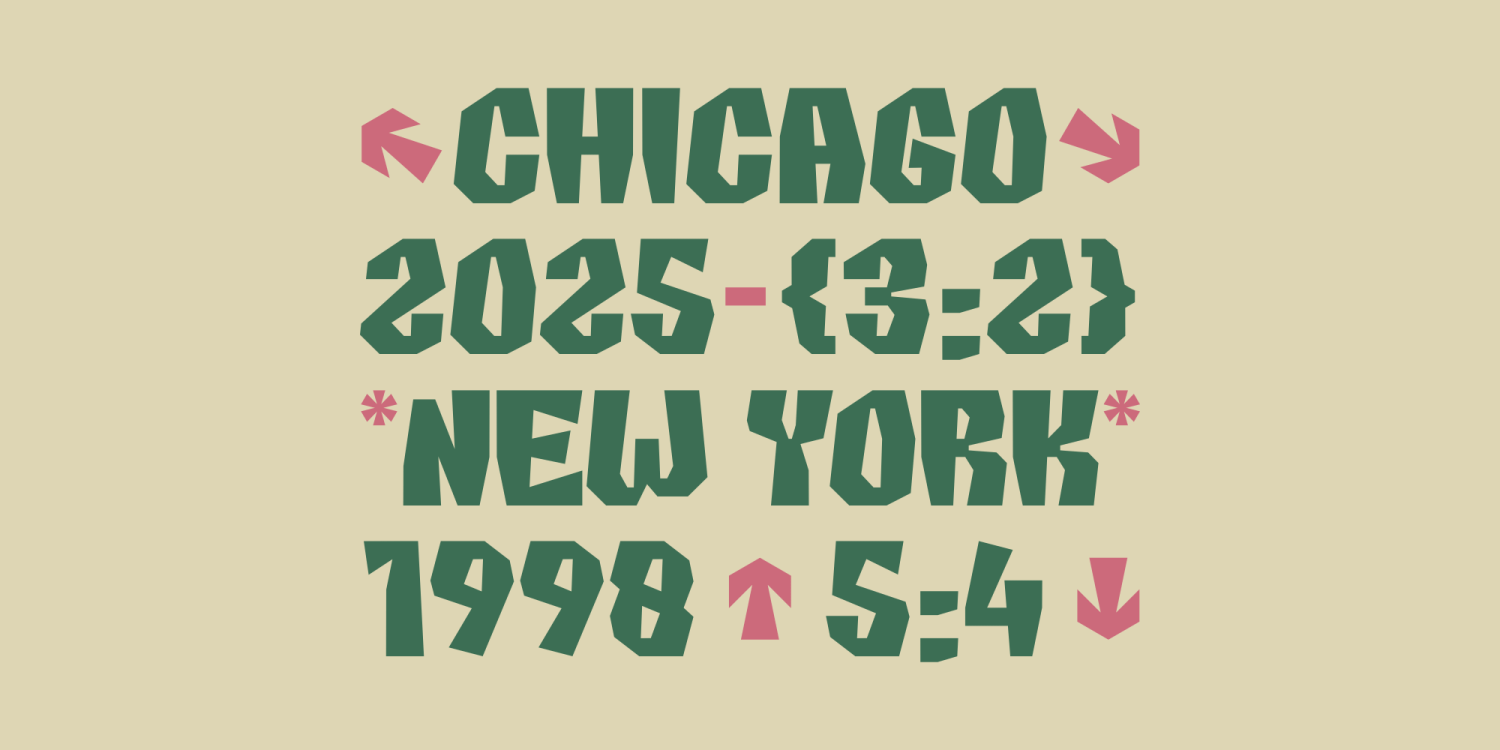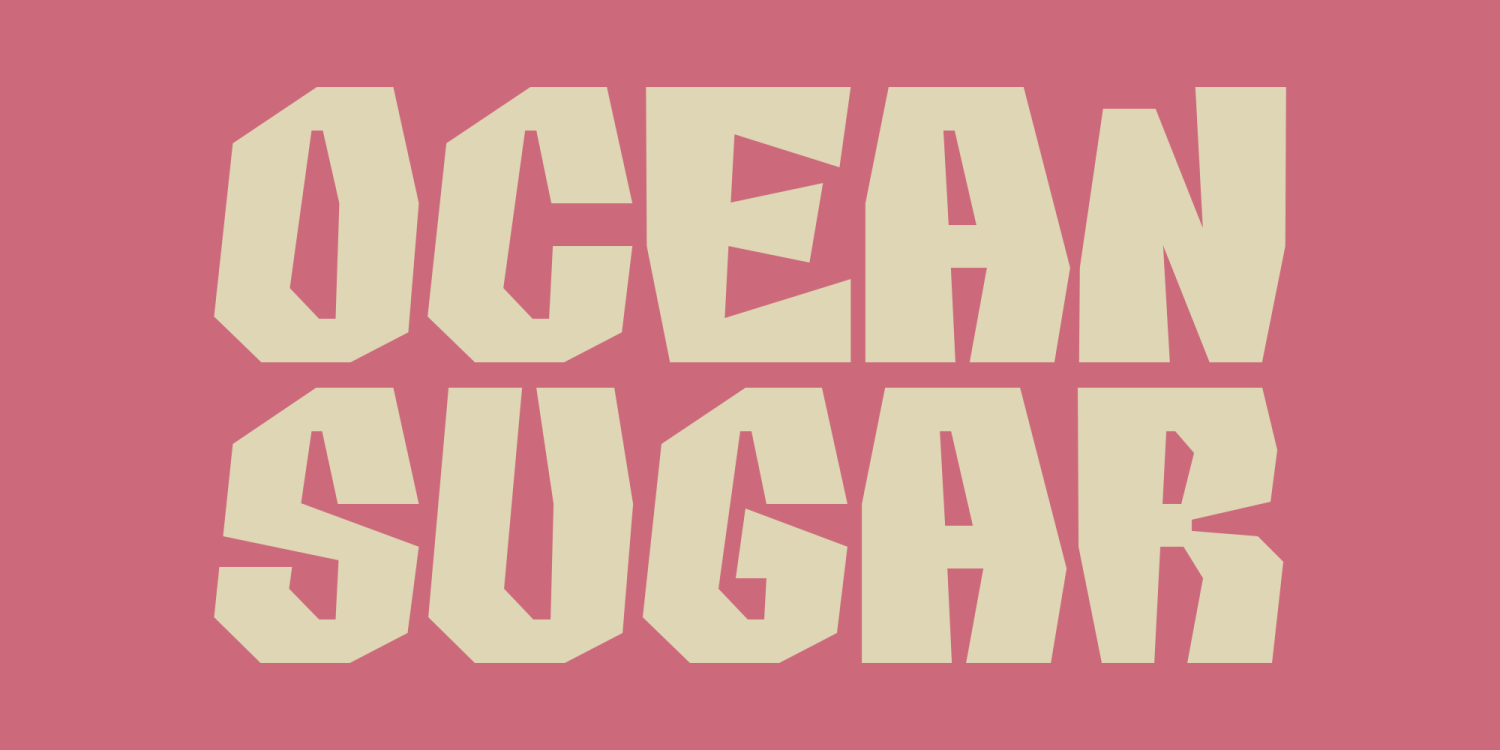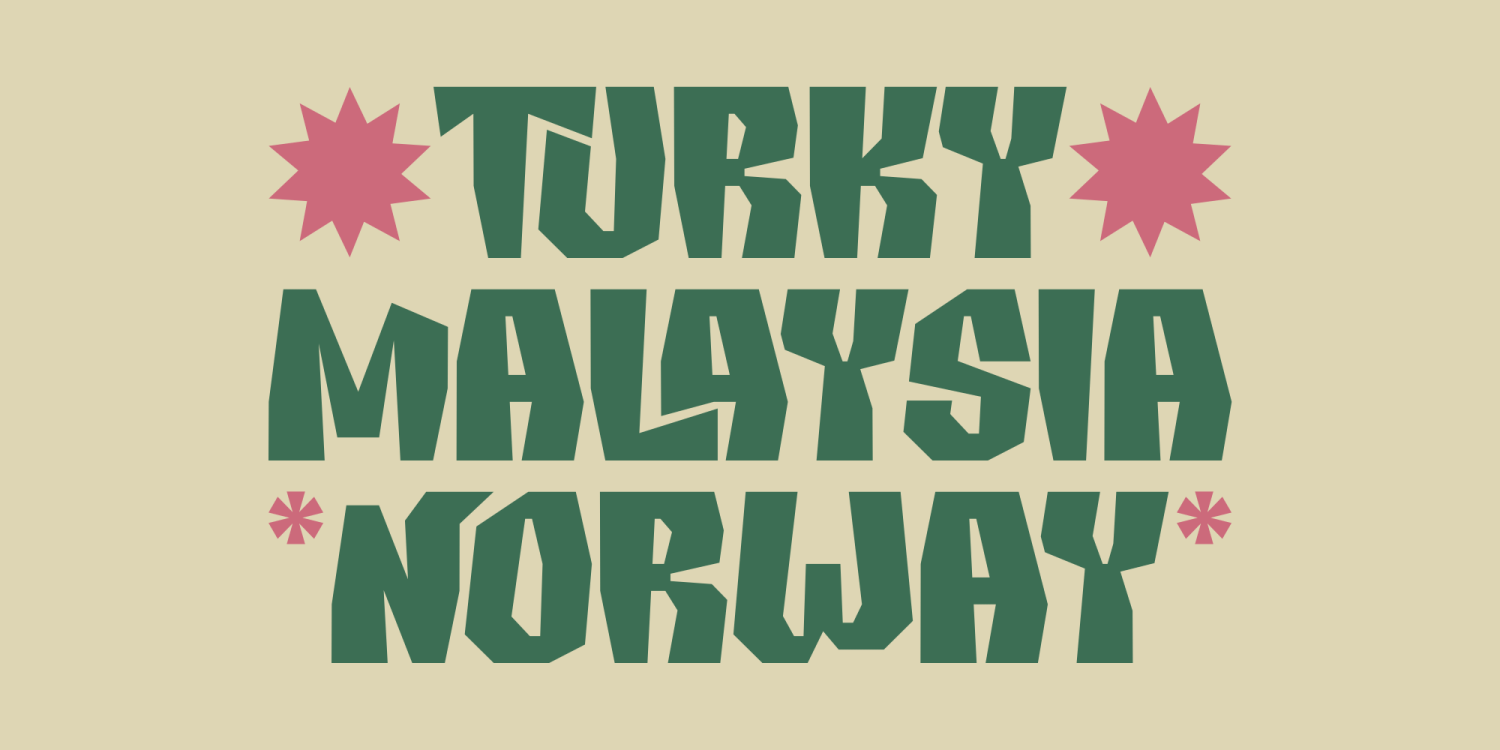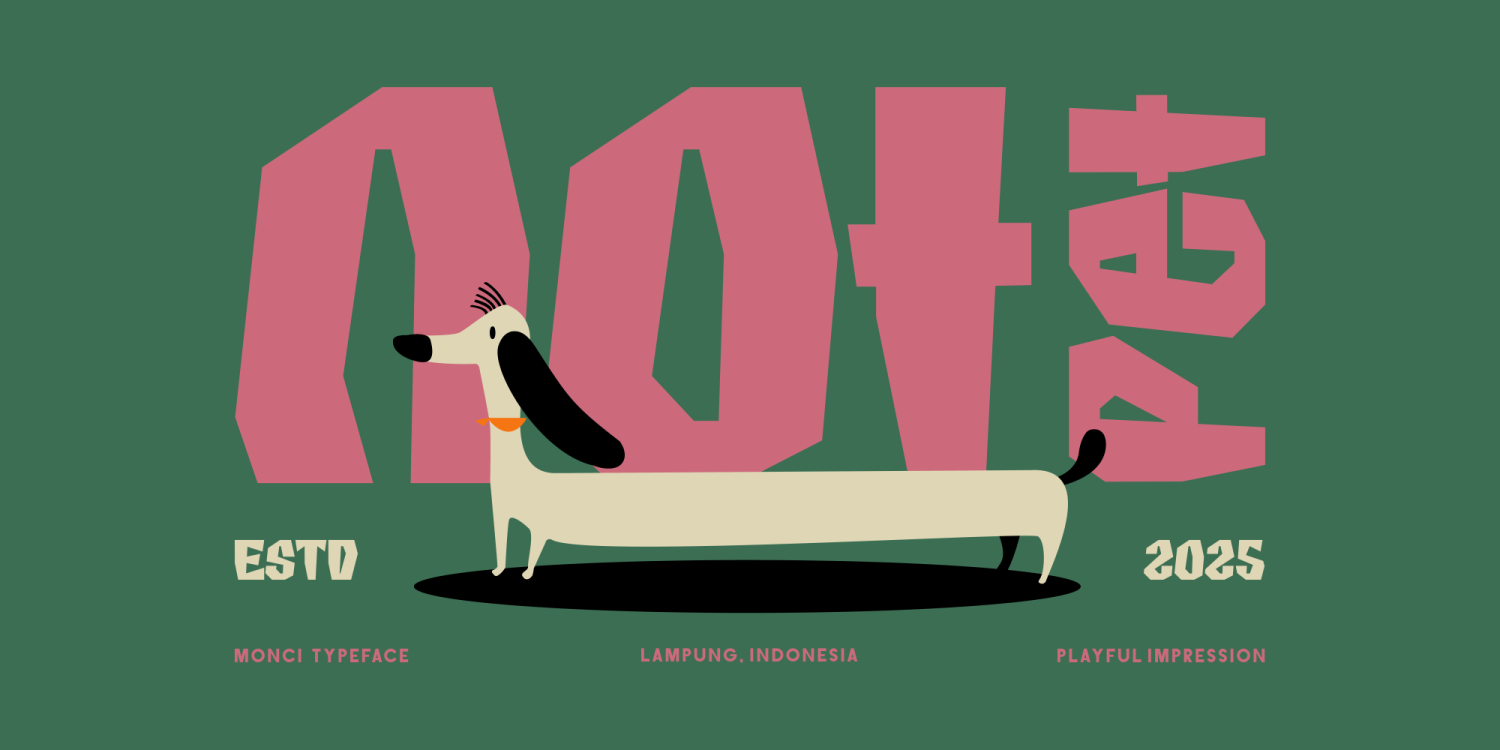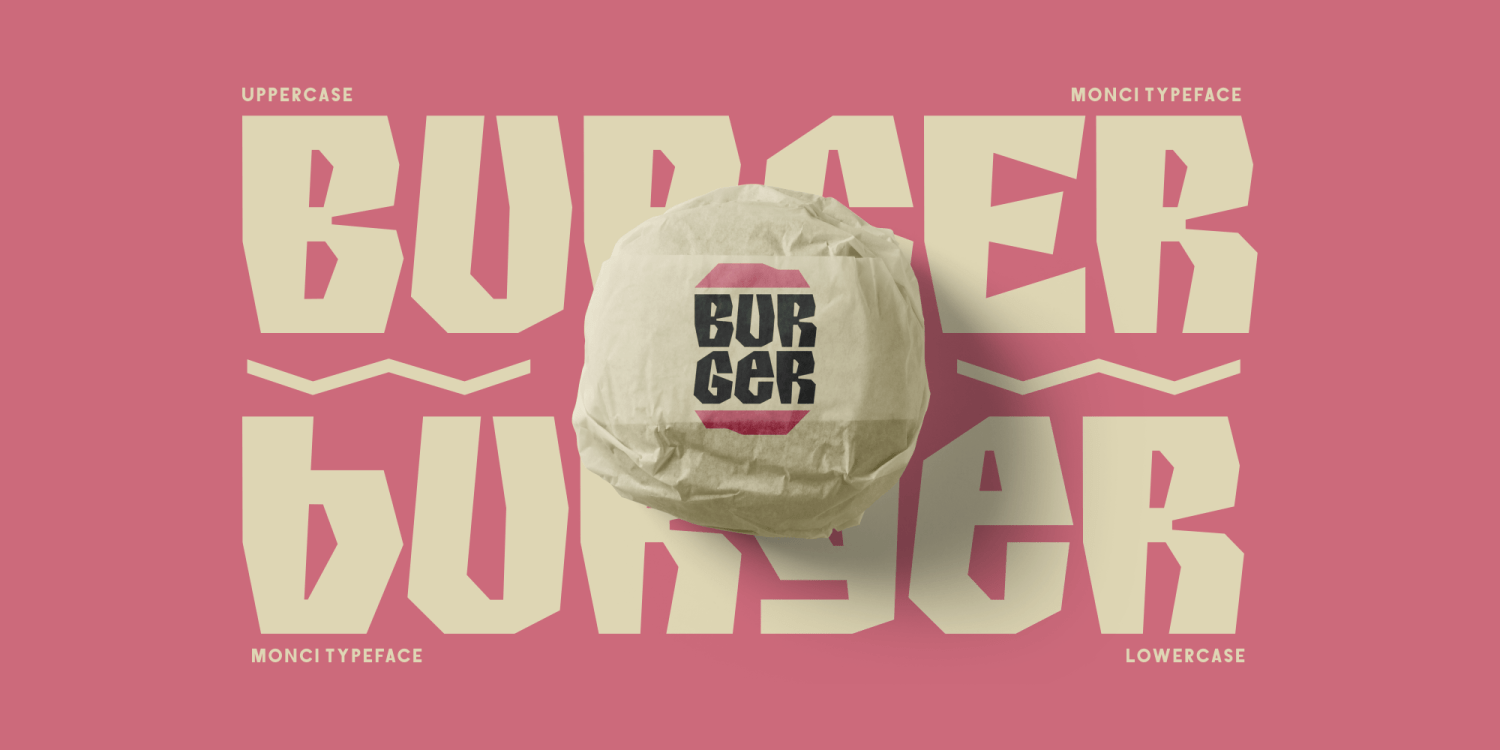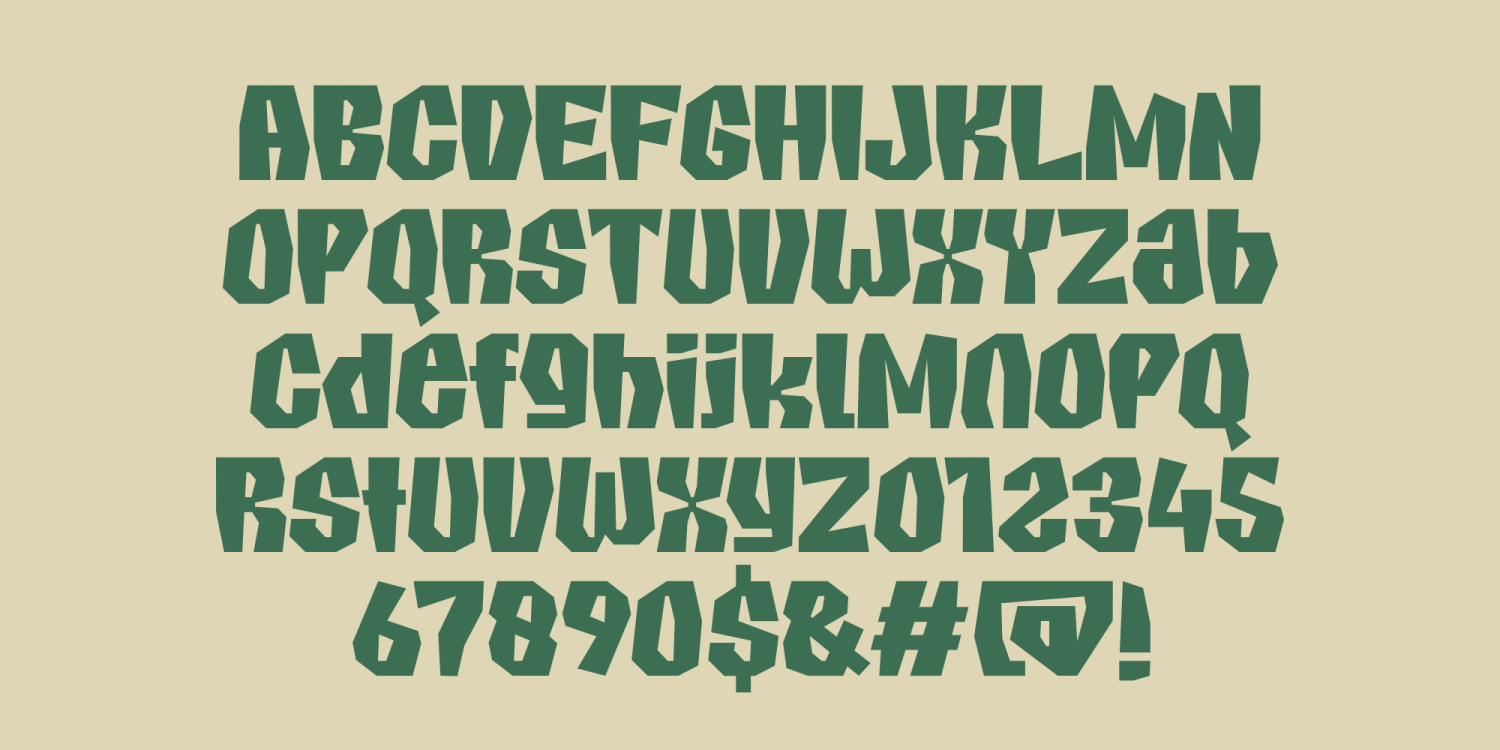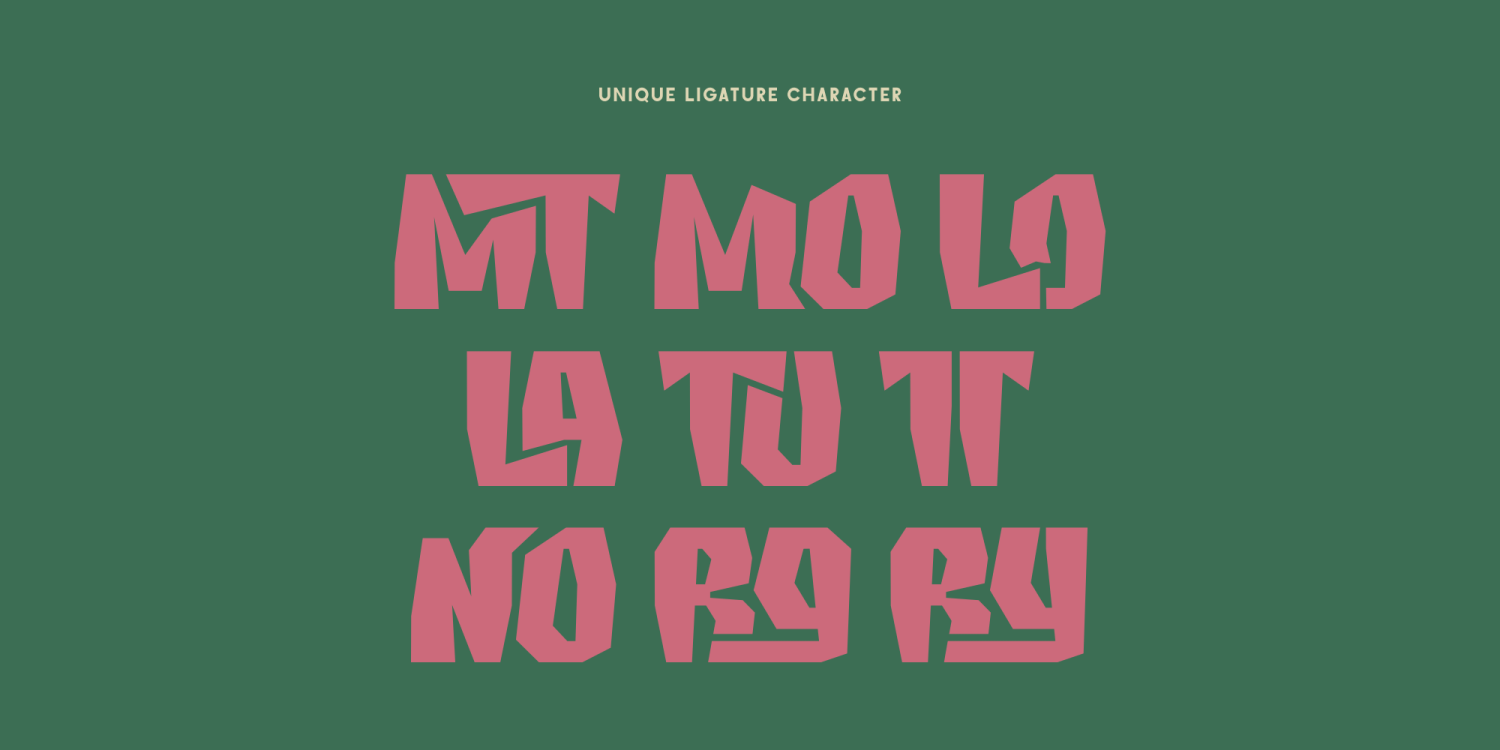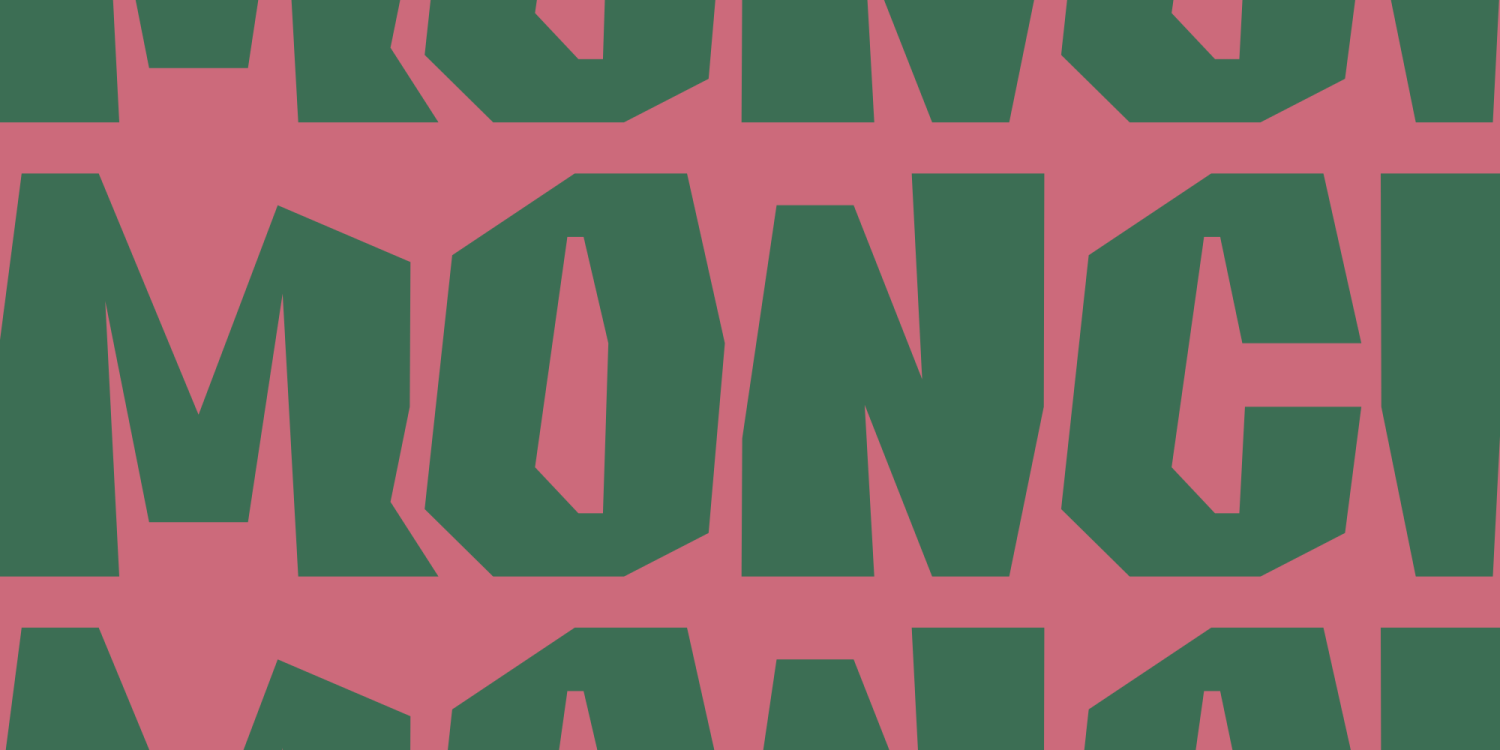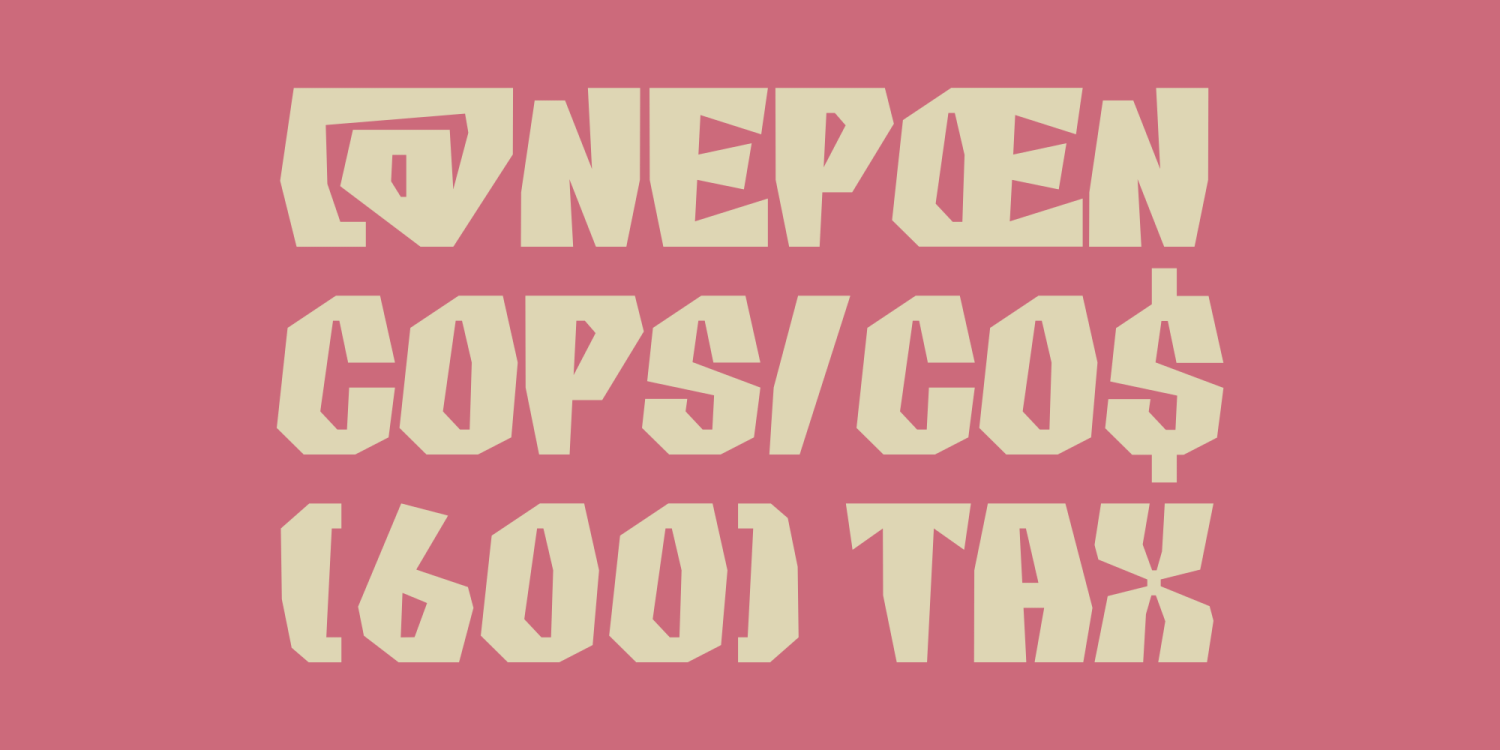
MONCI Regular
Font Family by Marvadesign
Buy NowMonci is a distinctive display typeface that combines bold geometric shapes with an expressive, irregular structure, resulting in a truly unique visual identity. Its unconventional letterforms create a playful yet striking impression, making it highly suitable for headlines, posters, packaging, and branding projects that aim to stand out with originality. The typeface includes uppercase and lowercase letters, numerals, symbols, and special ligatures, offering versatility and creative flexibility in design applications. While it embraces a fancy and artistic style, Monci maintains readability, ensuring that it conveys both creativity and clarity.